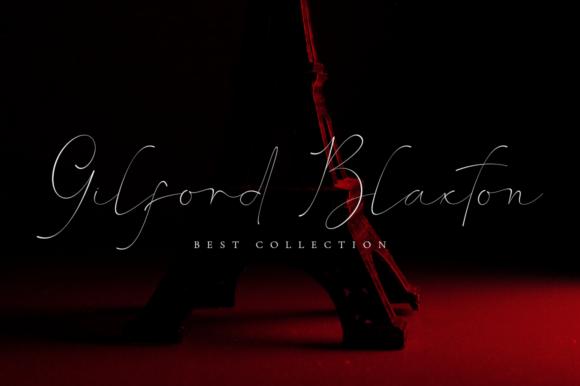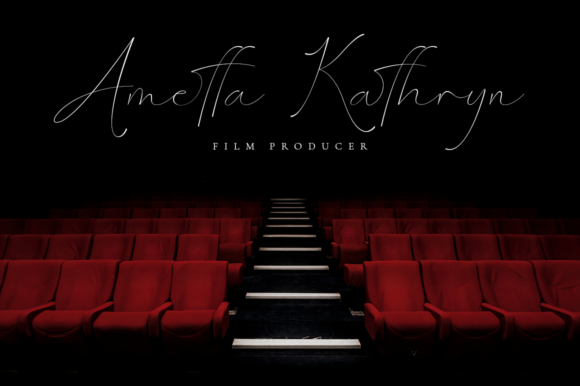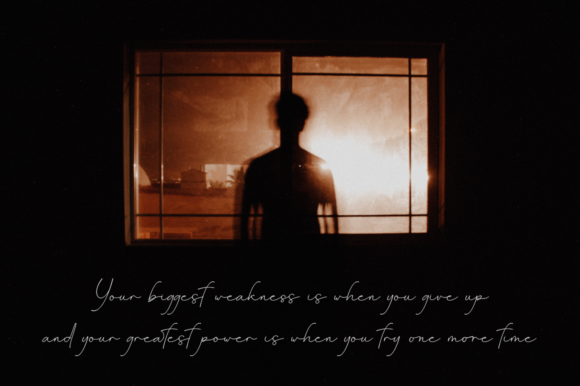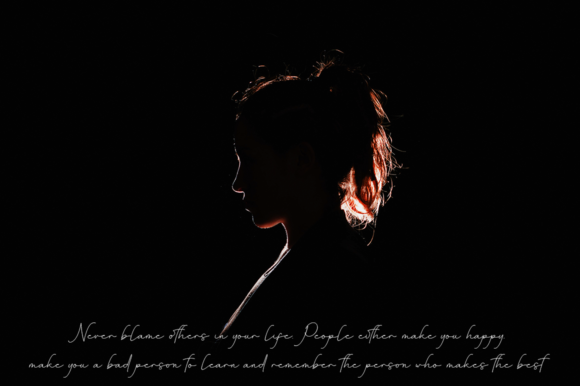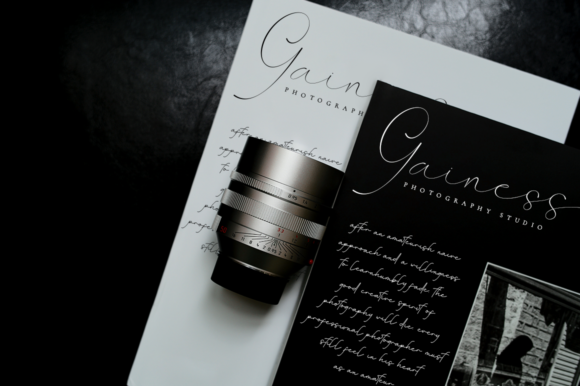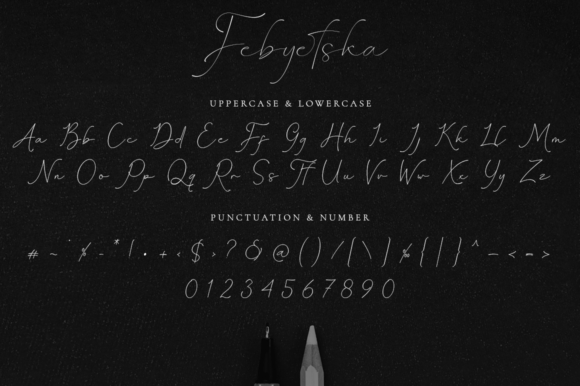
The Elegance of Febyetska Font: A Designer’s Delight
I still remember the time I was working on a project for a high-end fashion brand, and I was struggling to find the perfect font to match their sophisticated aesthetic. The client wanted a font that exuded elegance and refinement, but also felt modern and fresh. After hours of scouring through font libraries, I stumbled upon Febyetska Font, and it was love at first sight! 💕
Febyetska is an elegant script font that has become a staple in my design toolkit. Its classy calligraphic influences, combined with its contemporary and fresh feel, make it the perfect choice for a wide range of crafty ideas, from letterheads and titles to stationery.
An Honest Review: What I Love and What I Don’t
The Good: ✨
- ✅ Elegant and refined, perfect for high-end designs
- ✅ Highly versatile, suitable for a wide range of projects
- ✅ Beautifully crafted, with attention to detail and a clear sense of style
- ✅ Supports OpenType features, glyphs, and stylistic alternates
The Not-So-Good: 🤔
- ⚠️ Some users may find the font a bit too ornate for certain projects
- ⚠️ Limited use in very small font sizes, due to intricate details
The Story Behind Febyetska
Febyetska was designed by a team of skilled typographers who wanted to create a font that would exude elegance and refinement, while also feeling modern and fresh. Inspired by traditional calligraphy, Febyetska combines classic techniques with contemporary style to create a truly unique font.